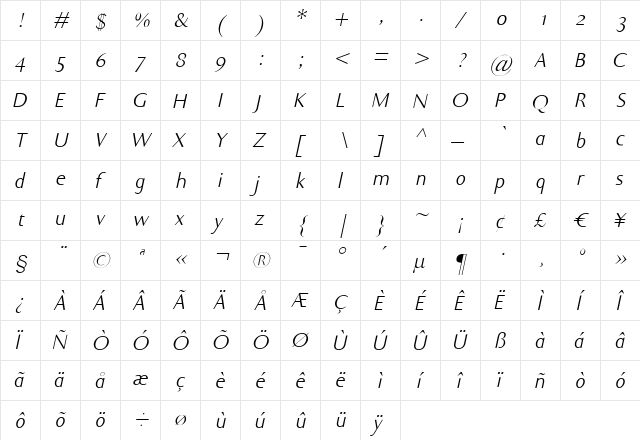
Ela Sans Light Italic
Design Context for Ela Sans Light Typeface
Ela Sans Light offers clean, dependable letterforms without strong stylistic allegiance, making it a practical choice for designers who need flexibility. The dynamic lean of this cut emphasises speed and emphasis in any layout. The delicate stroke weight brings airiness and refinement to layouts.